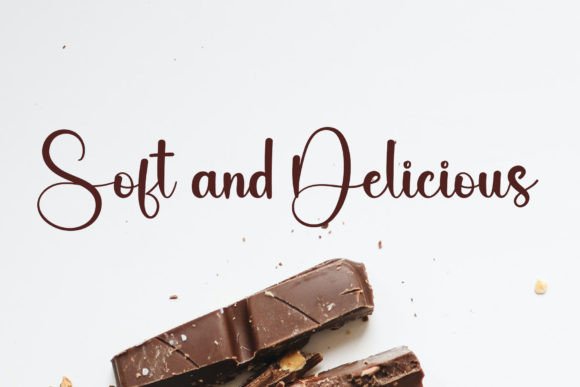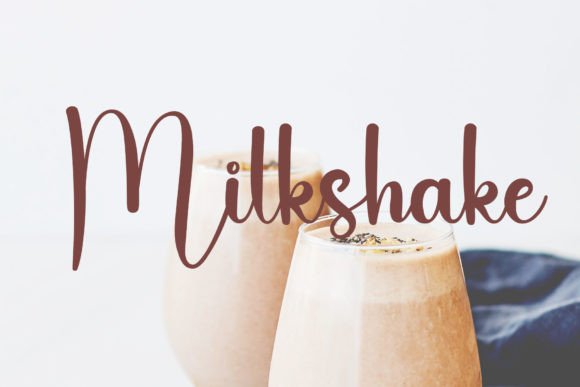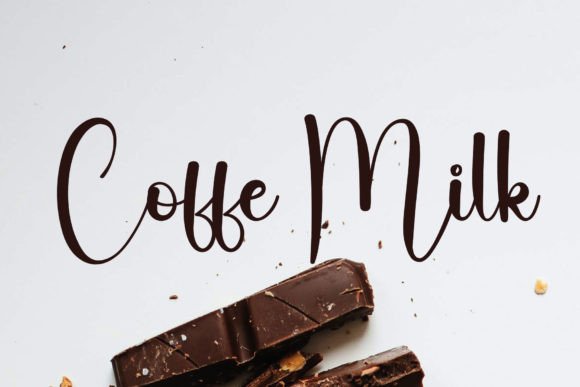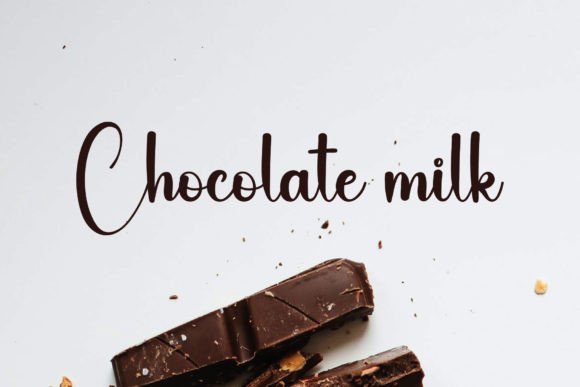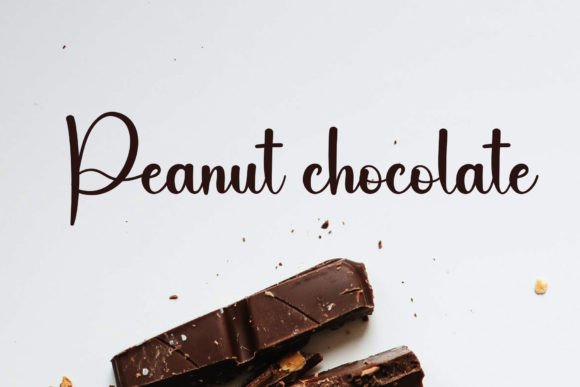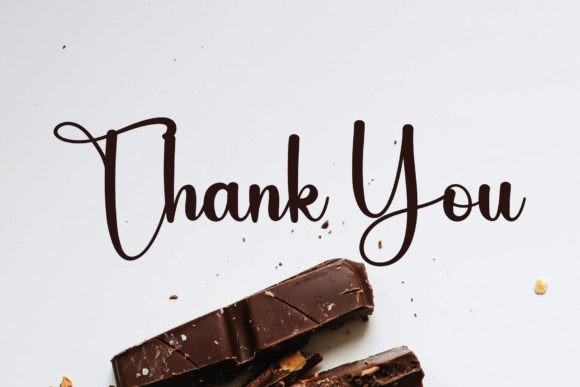
The Sweet Spot: Discovering the Chocolate Font
I’ll never forget the moment I stumbled upon the Chocolate font while working on a luxury branding project for a high-end chocolatier. My client wanted a font that exuded elegance, sophistication, and a touch of whimsy. I had spent hours scouring font libraries, but nothing seemed quite right. That was until I discovered Chocolate – a beautiful, handwritten font that seemed to dance across the page. ✨
So, what makes Chocolate so special? Here are a few things I adore about this font:
- 💃 Elegant, cursive script with a touch of playfulness
- ✅ Extensive character set, including alternates and ligatures
- 🌈 Beautiful, flowing connections between letters
- 🔍 Highly legible, even at smaller sizes
Of course, no font is perfect, and Chocolate has a few minor quirks:
- 🤔 Some users may find the font a tad too ornate for very small sizes or body text
- ⚠️ Limited availability of certain special characters (but who needs those fancy characters, anyway?)
The Story Behind Chocolate
According to the font’s creator (who we’ll call “the designer”), Chocolate was inspired by the art of hand-lettering and the world of fine chocolate. The designer wanted to capture the essence of luxury and sophistication in a font that would make designers swoon. And swoon we do! 🍫
| Author | Harlek studio |
- Q: Is Chocolate suitable for body text?
- A: While Chocolate is highly legible, it’s best suited for headings, titles, and short paragraphs. For longer body text, consider a more traditional serif or sans-serif font.
- Q: Does Chocolate support non-English characters?
- A: Chocolate has a limited character set, but it does support some non-English characters. Check the font’s documentation for specific details.